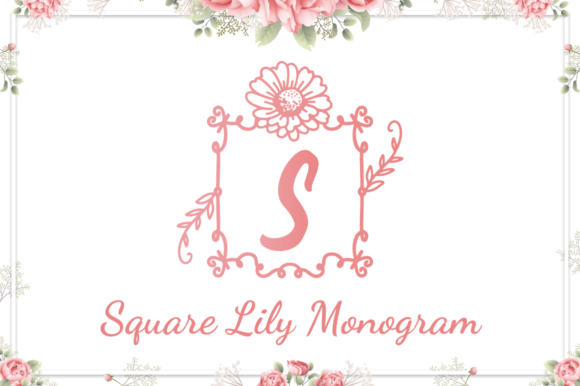
Adorn your creations with the elegance and charm of the Square Lily Monogram Font, a captivating decorative font that exudes a timeless allure. Let your imagination blossom as you explore the endless possibilities it offers, transforming ordinary designs into masterpieces.
Immerse yourself in the beauty of its intricate swirls and flourishes, each stroke meticulously crafted to bestow an air of sophistication and refinement upon your work. Whether you're crafting personalized wedding invitations, elegant stationary art, or captivating social media posts, Square Lily Monogram Font is the perfect choice for adding a touch of timeless charm.
With its incredibly versatile style, this font adapts effortlessly to a wide range of projects. Its delicate lines lend an air of grace to wedding invitations, while its bolder strokes add a touch of playfulness to social media posts. The possibilities are endless, limited only by your imagination.
Fall in love with the charm of Square Lily Monogram Font and unlock a world of creative possibilities. Experience the joy of creating designs that captivate and inspire, leaving a lasting impression on all who behold them.